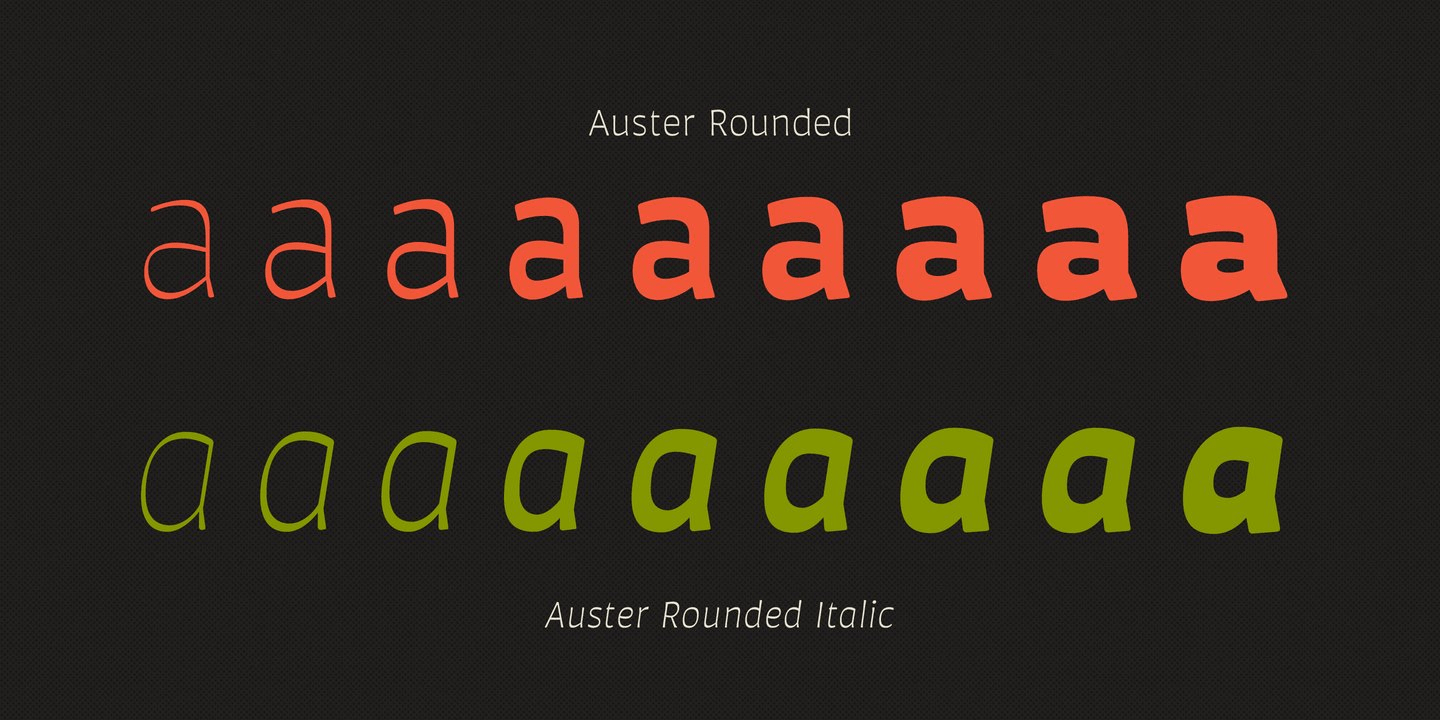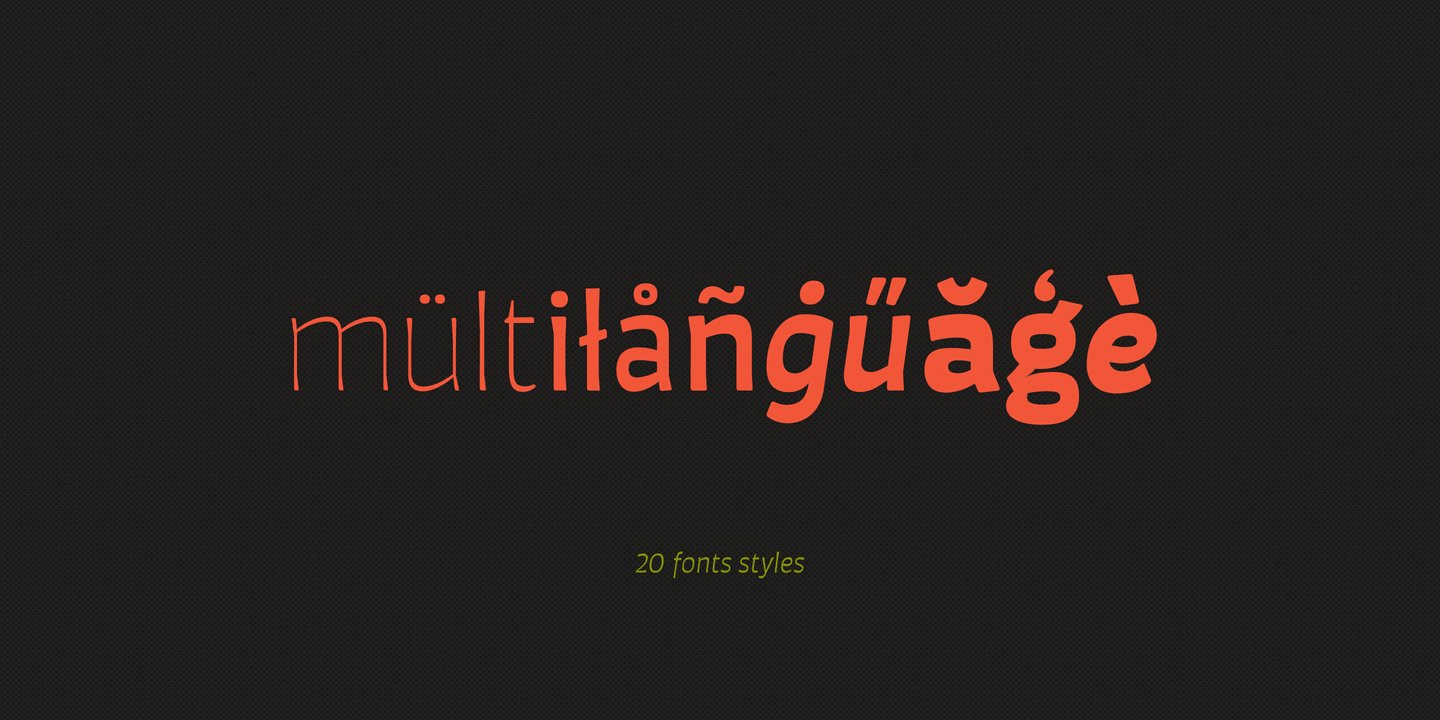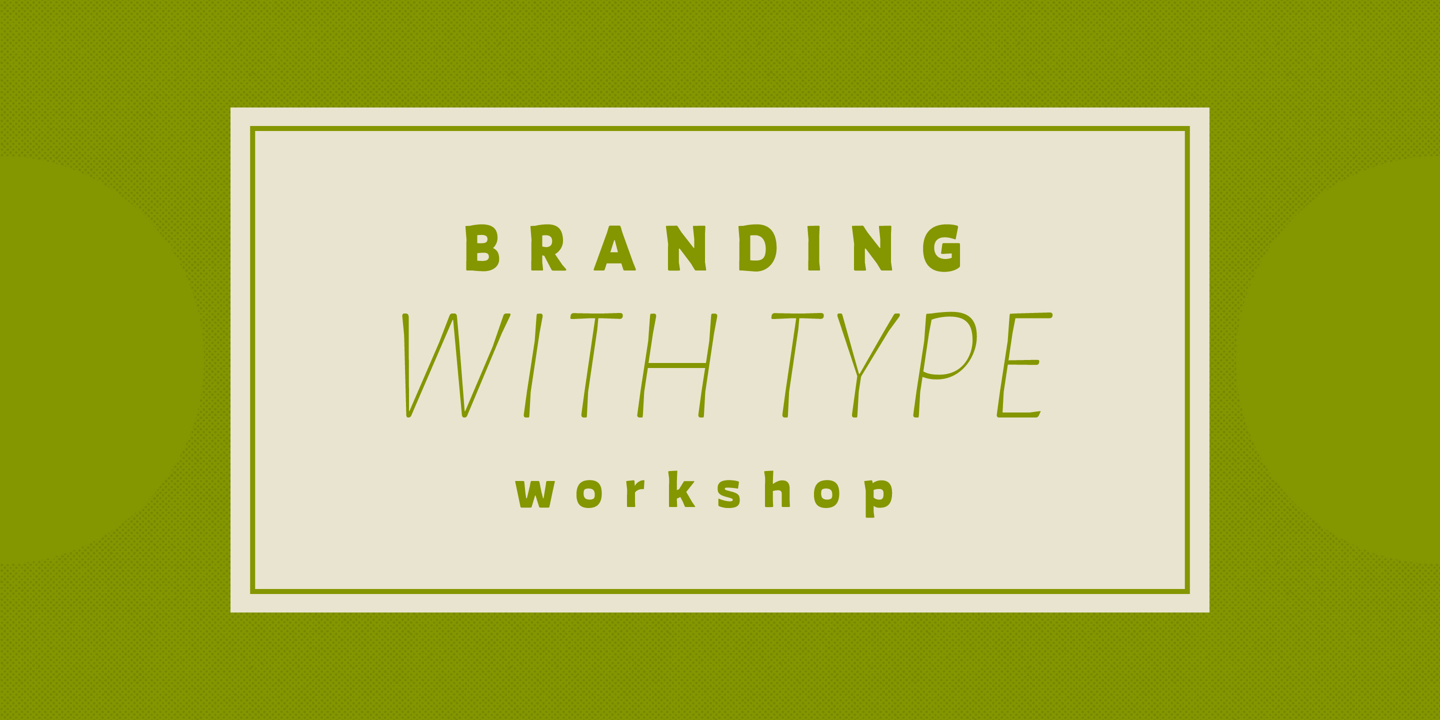
About Auster Rounded
Auster Rounded is a based on our First sans serif font Auster. The structure is based on reversed contrast, with a rounded corner. We recommend Auster Rounded, for branding, magazines, logos, ads, banner etc